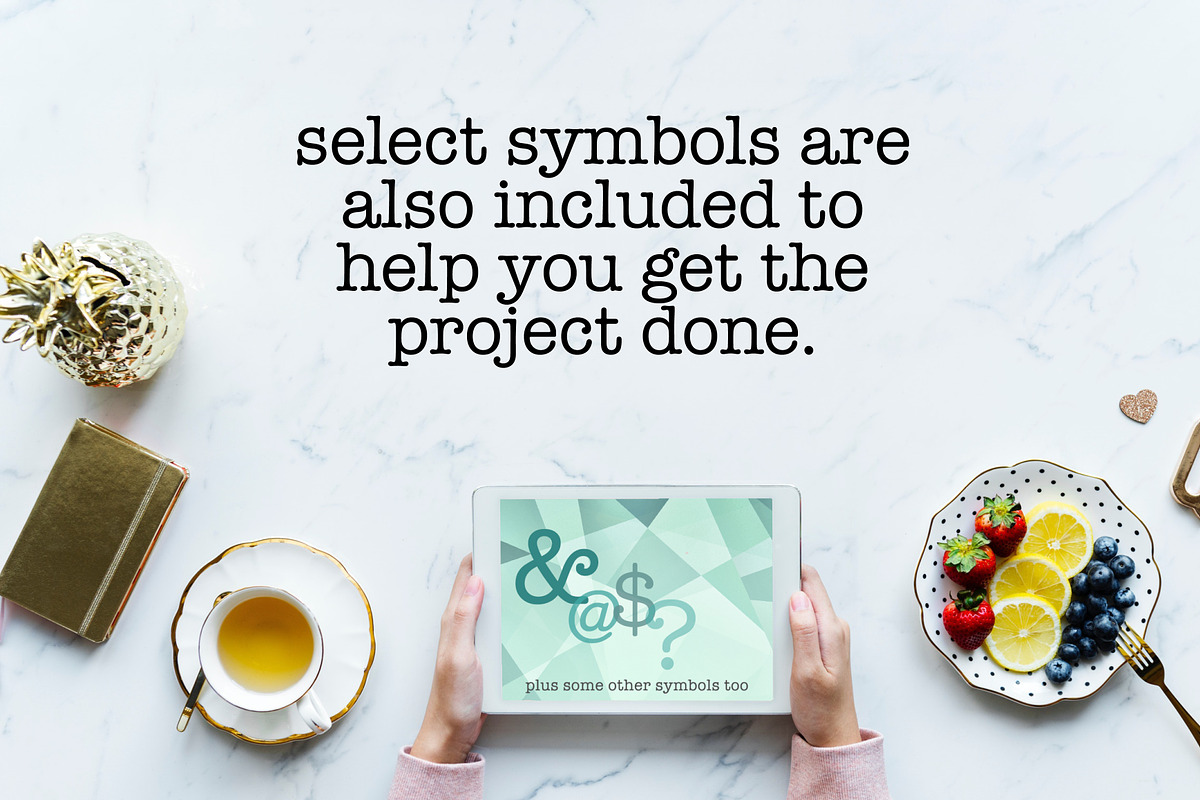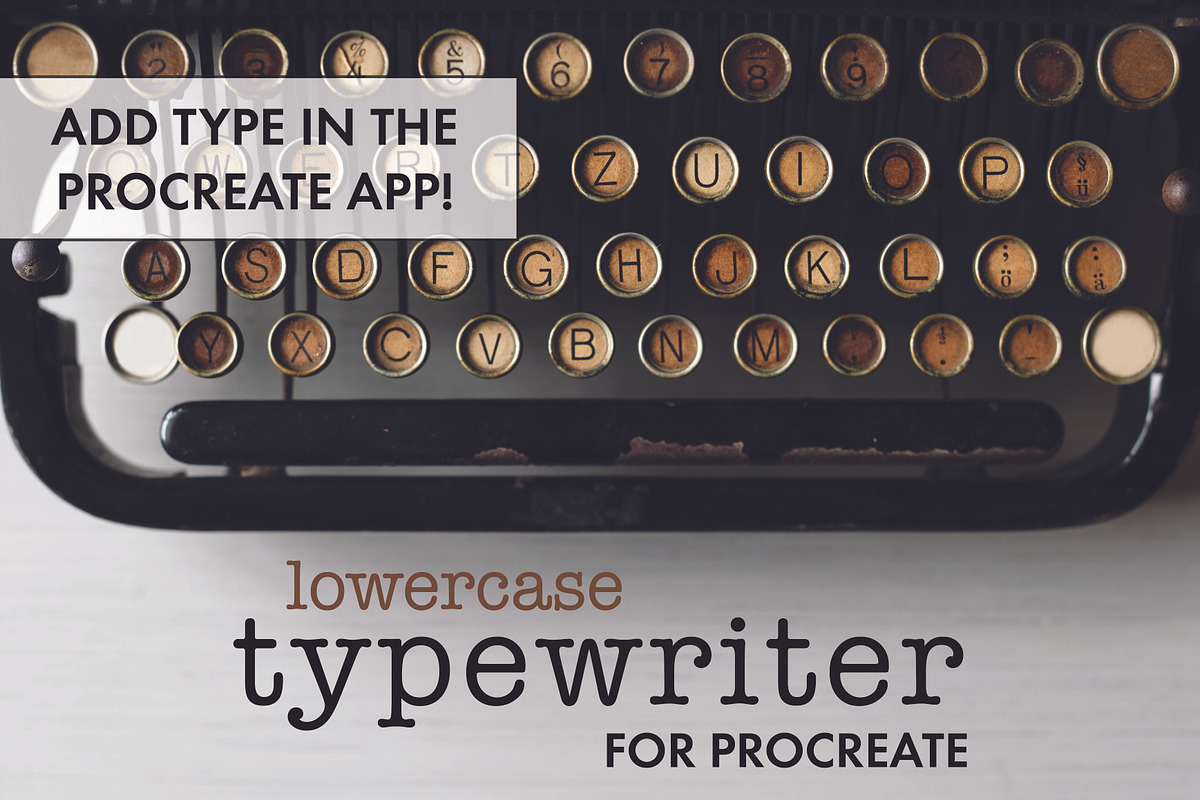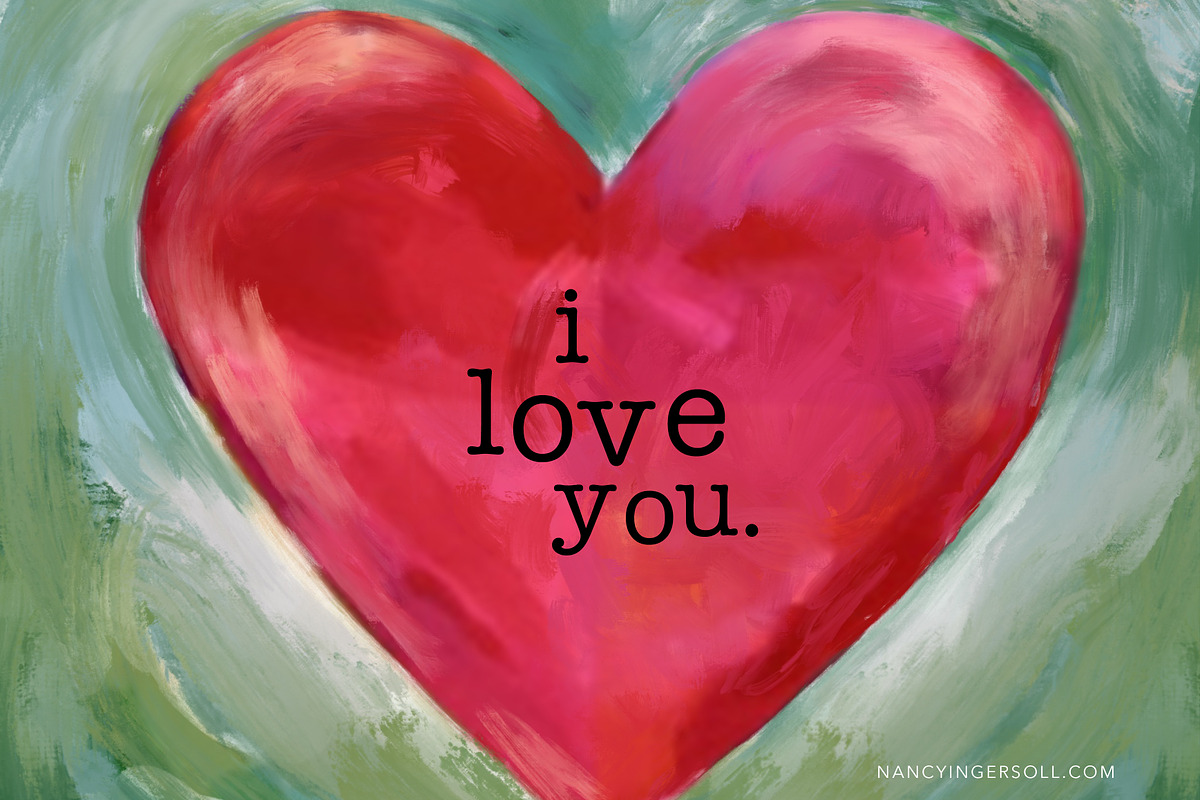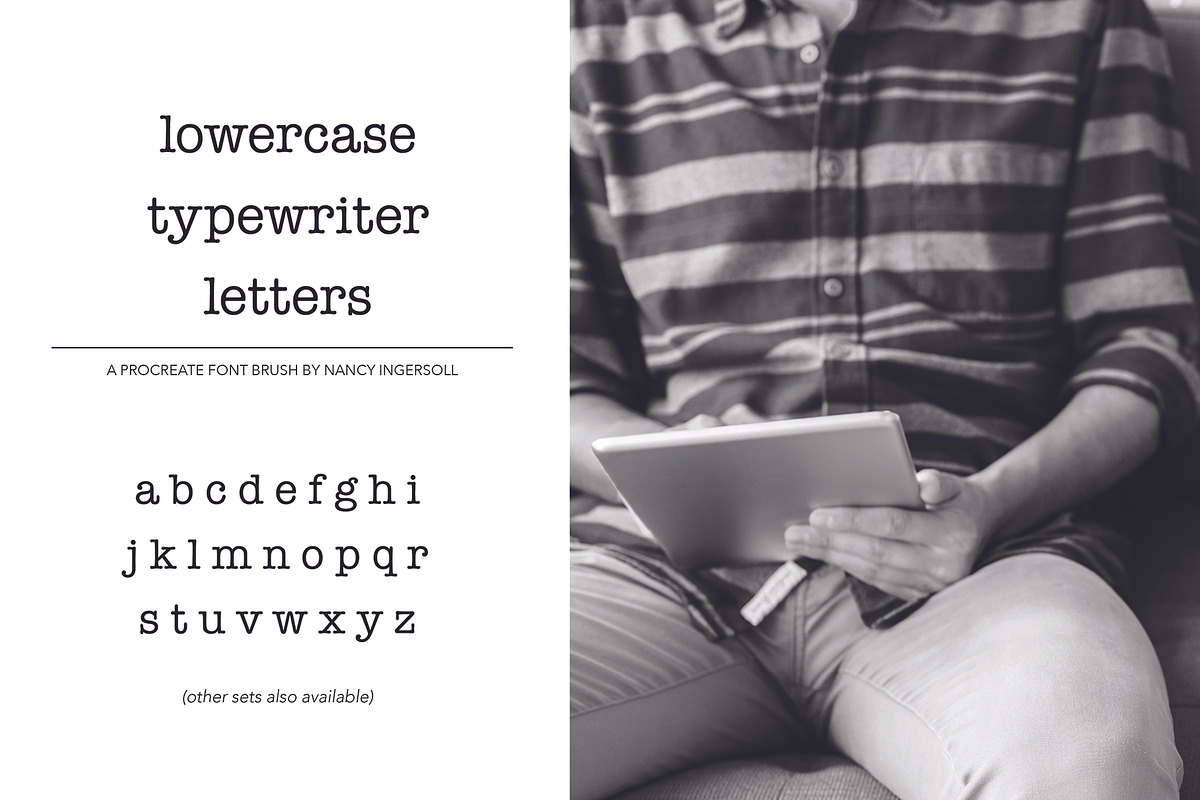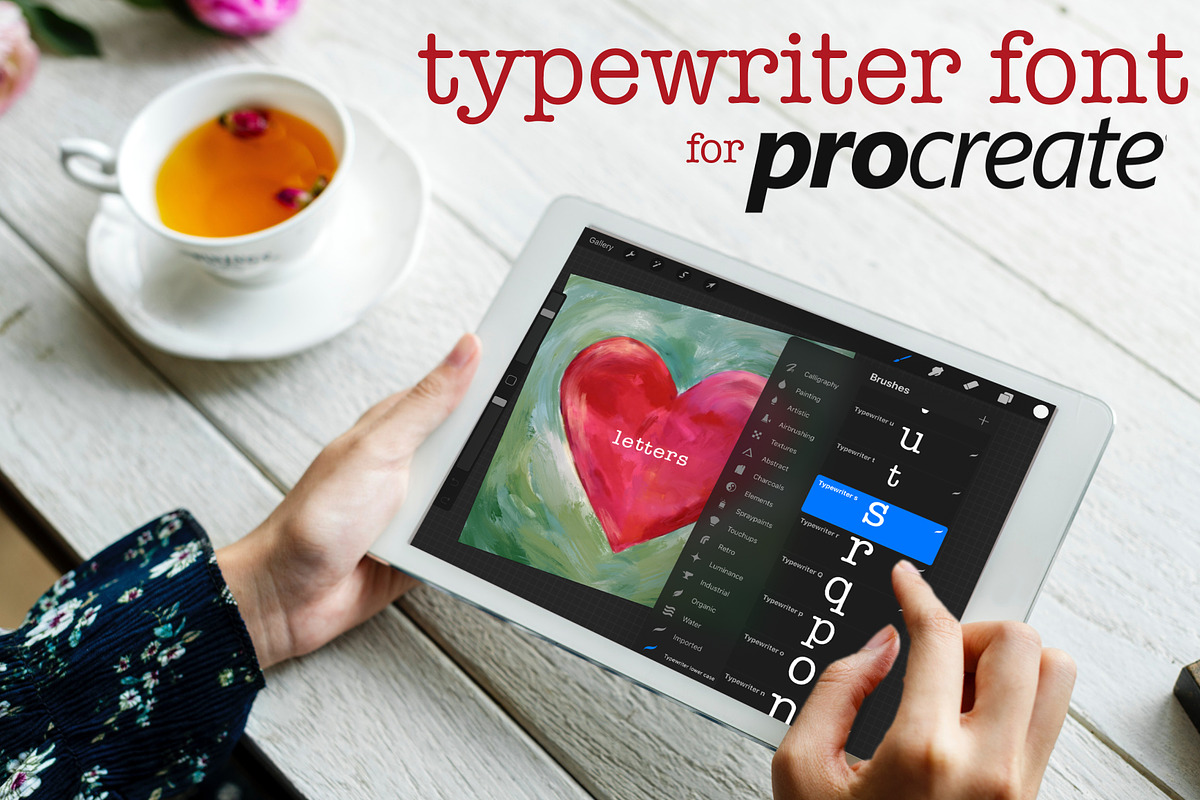
Procreate Typewriter Font lowercase
With this set, you can finally add type to your image in the Procreate app.
This special set of brushes eliminates one of the biggest frustrations of artists who use procreate because they allow you to add type to your artwork. This is not a brush for handlettering, but more of a stamp for adding type in a specific font to your image right inside the Procreate app. The baseline on these brushes is aligned, so when you use a guide, the bottoms will align if you use the same size for each brush and stamp on the guideline. You can choose the color, the size, and the opacity. Choose the set with the font you want and get started.